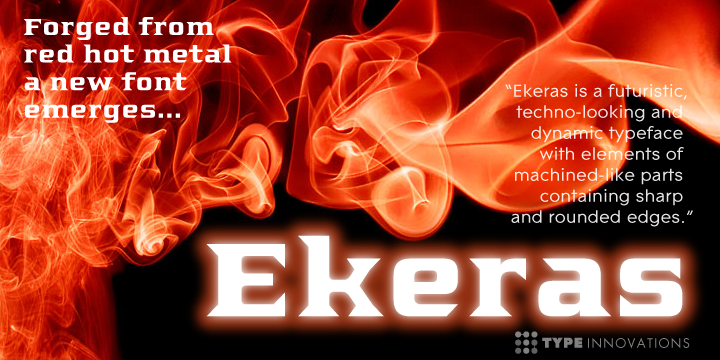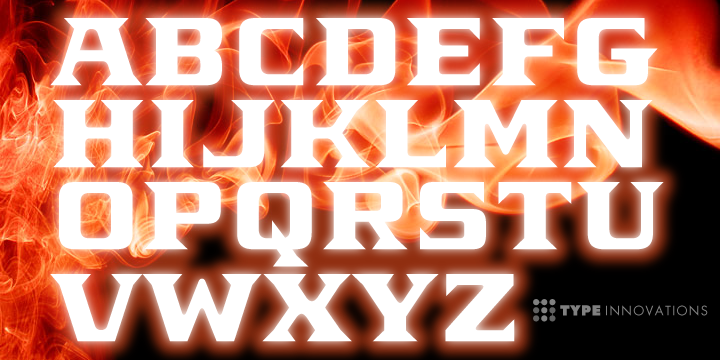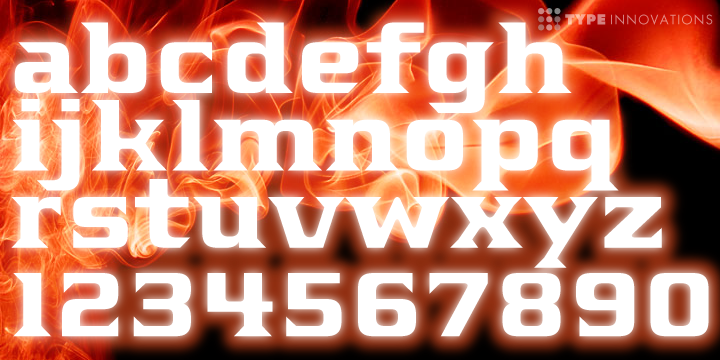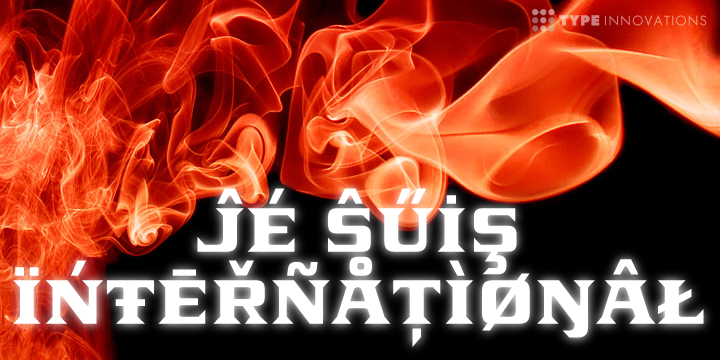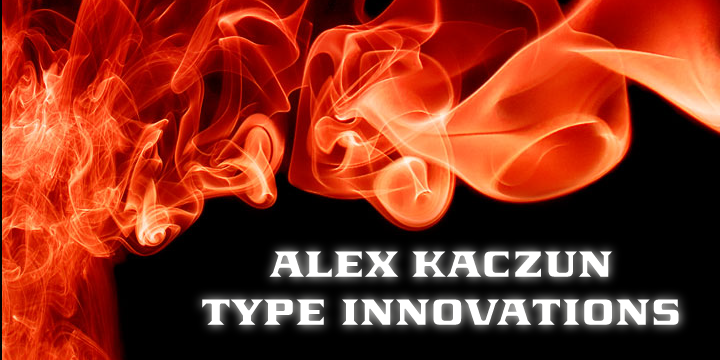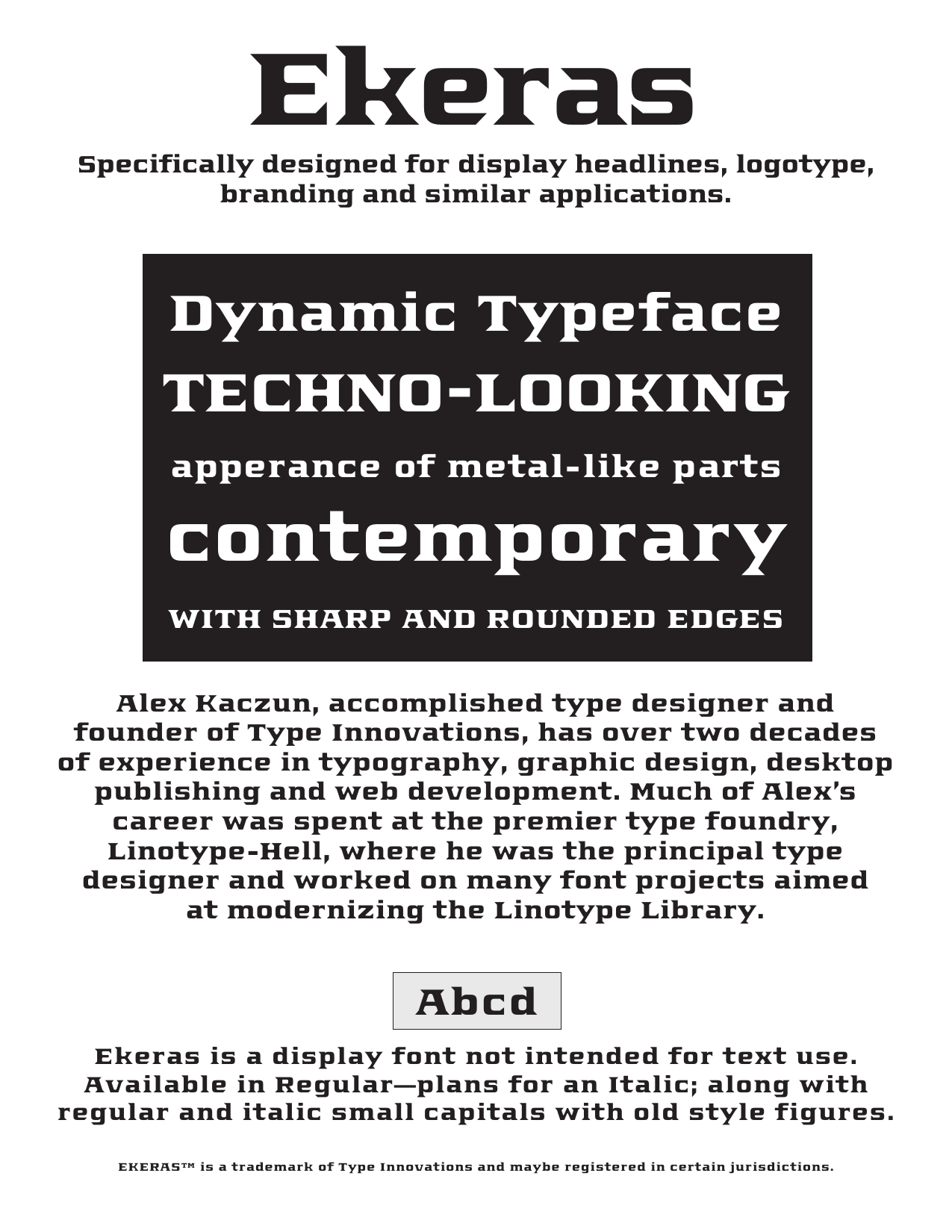
Ekeras
Ekeras is an original design by Alex Kaczun. It's a display font not intended for text use. It was designed specifically for display headlines, logotype, branding and similar applications.
Primarily a display, this extremely versatile font has generous proportions, large counters and loose fitting which also allow the font to work well across a wide range of text sizes.
The entire font has an original look which is strong, dynamic, machine generated and can be widely used in publications and advertising.
Ekeras is a futuristic, techno-looking and dynamic typeface with an appearance of machined-like parts with sharp and rounded edges.
The large Pro font character set supports most Central European and many Eastern European languages.